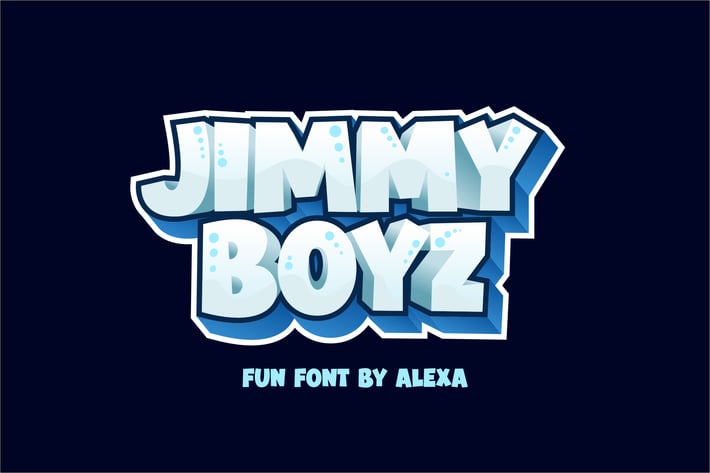
JIMMY BOYZ - Bold and FUN font
Jimmy Boyz - Chunky Font
Looking for a bold cartoon font that pops off the screen? Jimmy Boyz is a chunky, 3D display typeface full of fun and explosive energy. With its thick letterforms, playful round corners, and layered dimensional look, this font is built to command attention. Its comic-inspired personality and vibrant style are a perfect match for kids’ games, toy packaging, animated titles, or any design that needs to shout “fun!” With high contrast and a dynamic rhythm, Jimmy Boyz injects youthful excitement into every project it touches.
Whether you're working on mobile game UI, children’s book covers, or YouTube channel branding, Jimmy Boyz gives your text the energetic punch it needs to stand out. Its big, bubbly presence turns any headline into a spotlight and makes your content feel bold, approachable, and irresistibly playful. Ideal for creators aiming to connect with young audiences or fans of colorful, comic-style graphics.
Key Features
Bold & Playful Letterforms – Creates a fun, friendly, and high-energy aesthetic.
Perfect for Game Titles & Cartoons – A great choice for adventure, fantasy, and action themes.
Smooth & Versatile – Works well in logos, posters, merchandise, and packaging.
Great for Branding & Social Media – Optimized for eye-catching, engaging visuals.
Unleash the fun with Jimmy Boyz and bring your design to life with a bold, layered look that kids (and kids at heart) will love. Perfect for designers, illustrators, and content creators who want to add impact and character with every word.